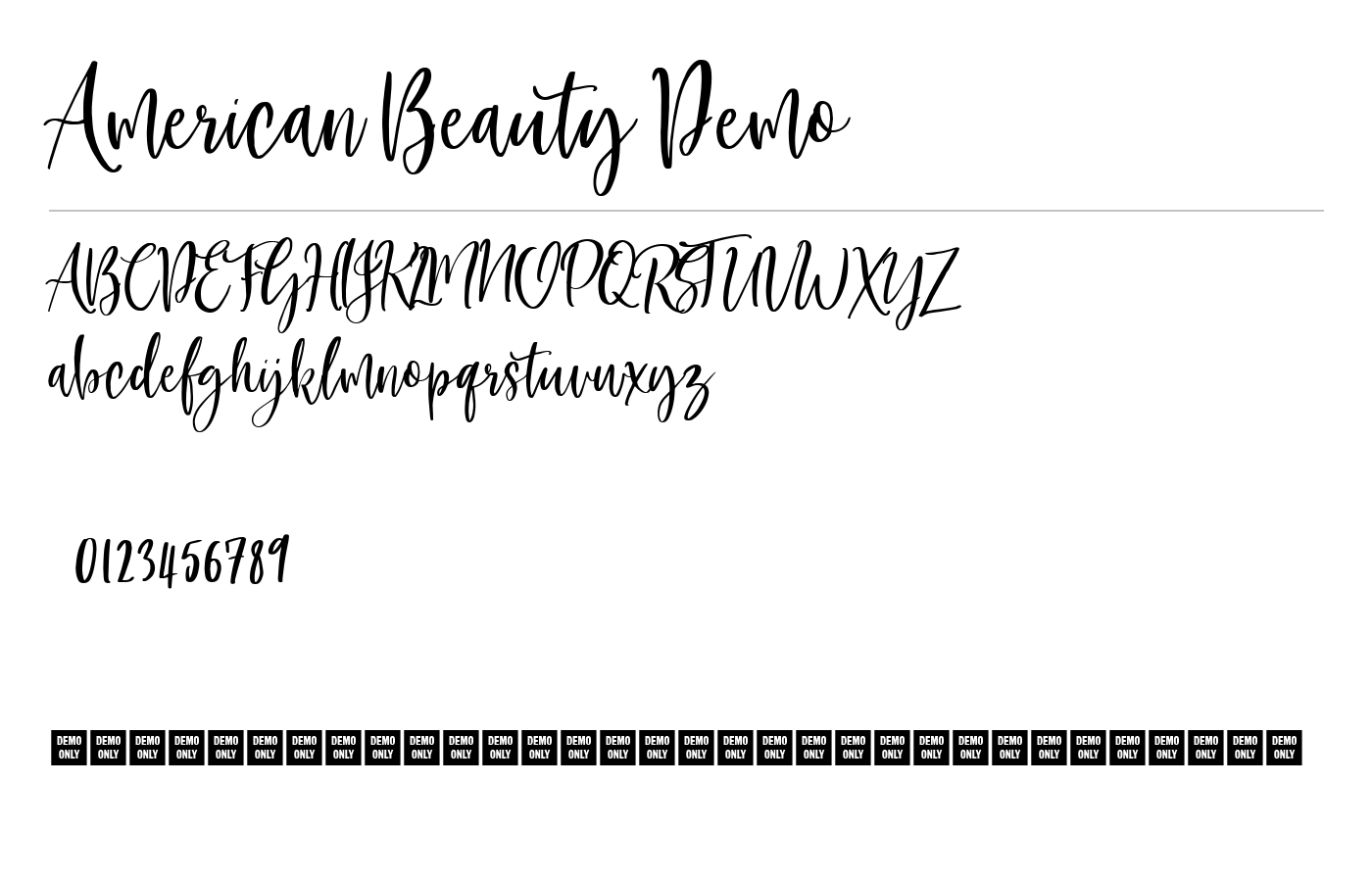
American Beauty Demo is a lively and elegant script font with a handwritten feel, featuring tall, slender letterforms and smooth, flowing strokes. Its delicate, slightly slanted design makes it ideal for adding a personal, stylish touch to invitations, branding, and creative projects that seek a warm, artistic vibe. This font works beautifully for headlines and decorative text where an expressive and graceful look is desired.
American Beauty Demo Font
About American Beauty Demo Font